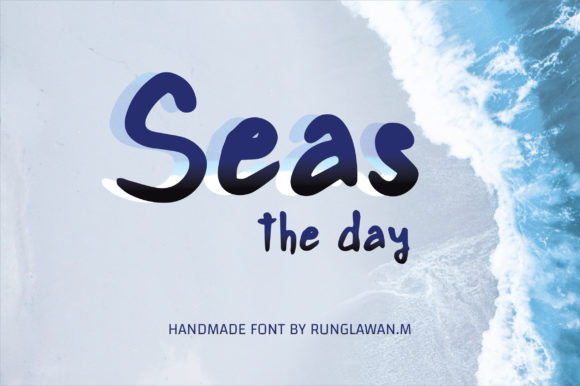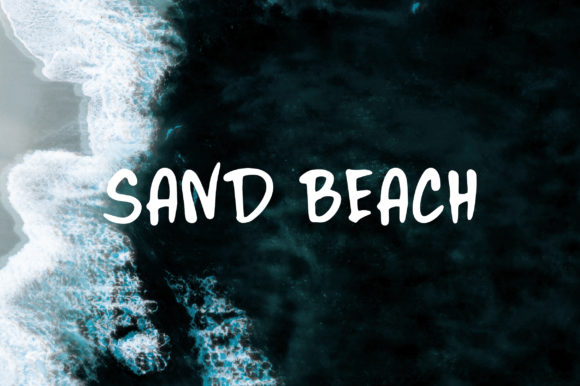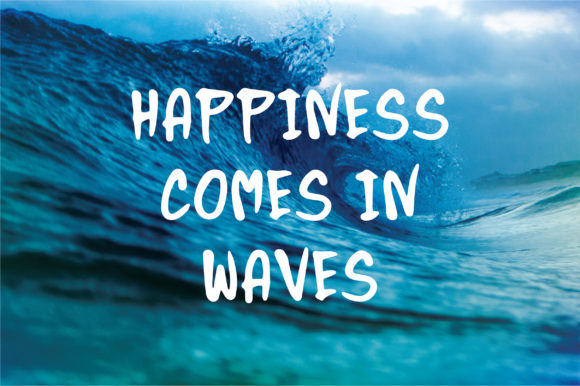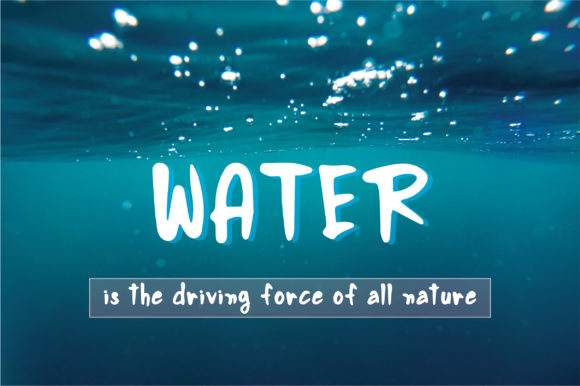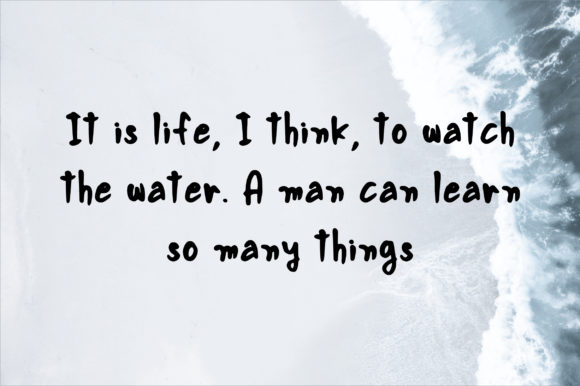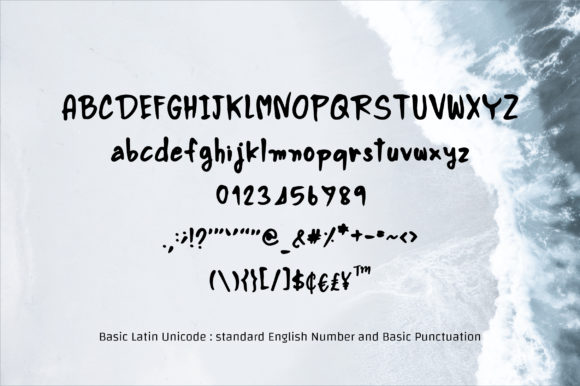
Seas the Day Font
About Seas the Day Font
Seas the Day is a wonderfully light and charming script font that radiates life. Get inspired by its unique charm!